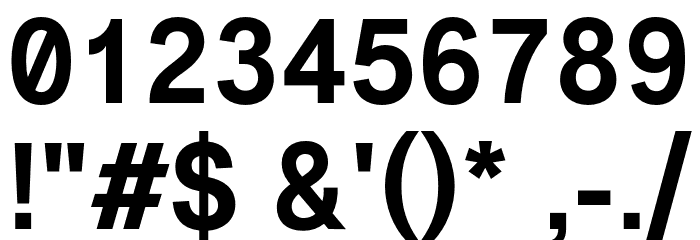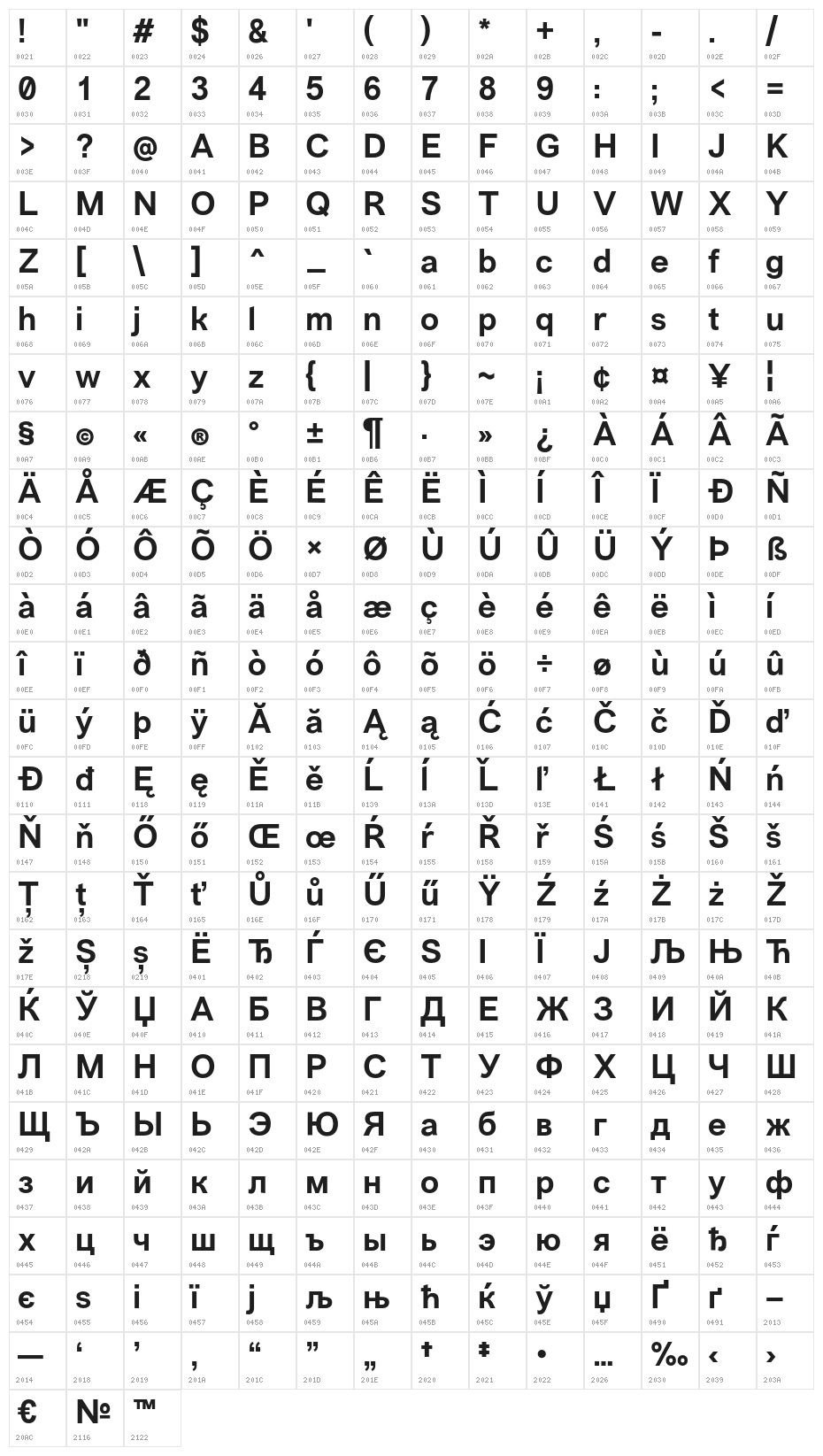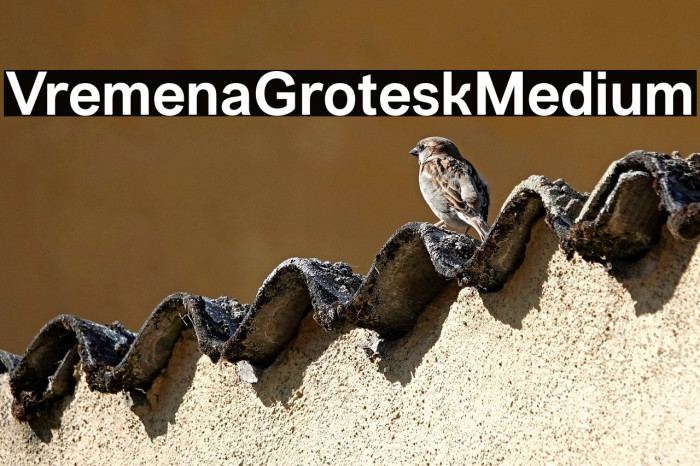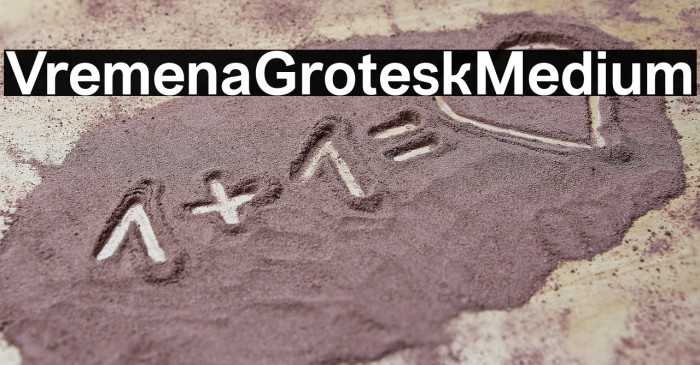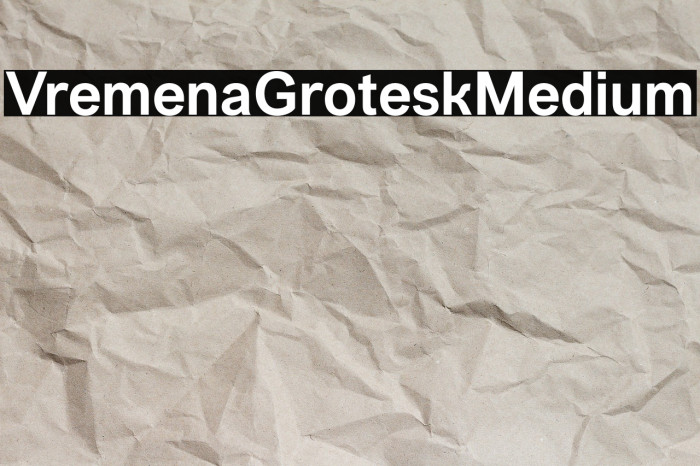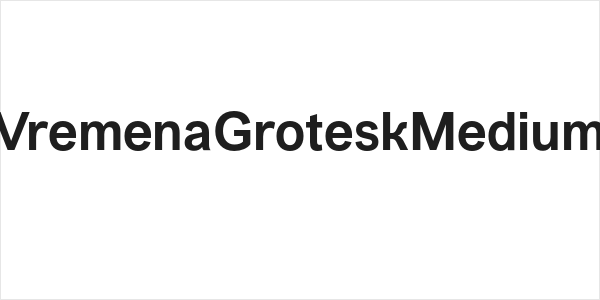
VremenaGroteskMedium Font
VremenaGroteskMedium Description
This font features a clean and modern sans-serif design, characterized by its bold and uniform stroke width. The uppercase letters are well-proportioned with a consistent height, while the lowercase letters maintain a harmonious balance, ensuring readability. The numerals are distinct and clear, making them suitable for various applications. Special characters are crafted with precision, adding to the font's versatility. Its straightforward and uncluttered appearance makes it ideal for contemporary design projects.
| Use Case | Headlines, Logos, Advertising |
| Proposed Projects | Ideal for branding, advertising, website headers, and editorial design. |